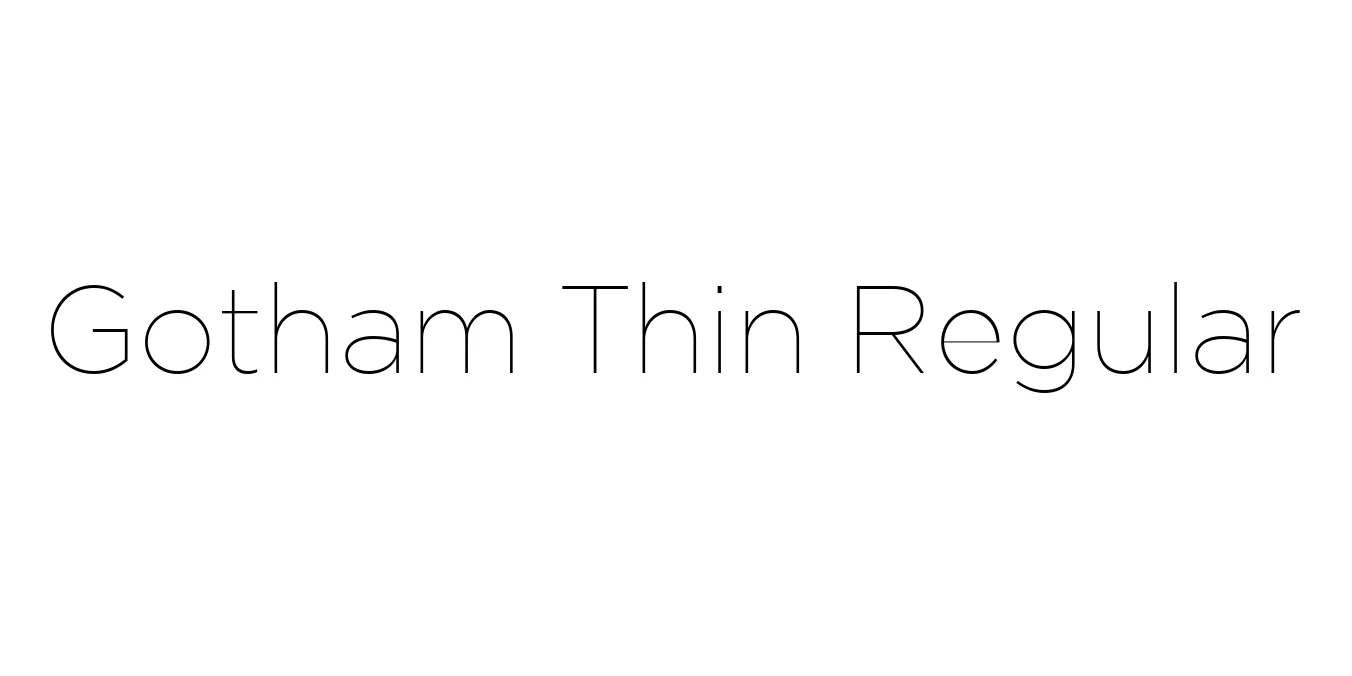
Gotham Thin Regular
Designed by Tobias Frere-Jones
Gotham Thin Regular is a cornerstone of modern typography, designed by the renowned Tobias Frere-Jones in 2000. The inspiration for the Gotham family was drawn from the utilitarian lettering found on New York City's mid-century architecture and signage, such as the Port Authority Bus Terminal. This specific weight, Thin, translates that rugged, structural heritage into a sophisticated and airy aesthetic that prioritizes clarity and elegance.
Since its release, the Gotham family has achieved legendary status, most notably being used for the Obama 2008 presidential campaign. The Thin Regular variant is particularly favored in high-end editorial design and minimalist branding projects where a sense of luxury and modernity is required. Its geometric construction and wide apertures make it highly legible even in its lightest forms, ensuring it remains a staple for designers globally.
Gotham Thin Regular Best Uses
Sophisticated headlines and pull quotes for high-fashion magazines.
Minimalist luxury brand logos and sleek corporate identity systems.
Modern hero sections and clean user interface headers.
Elegant posters, high-end brochures, and architectural presentations.